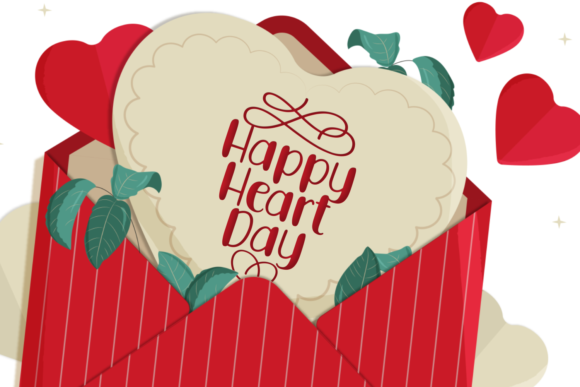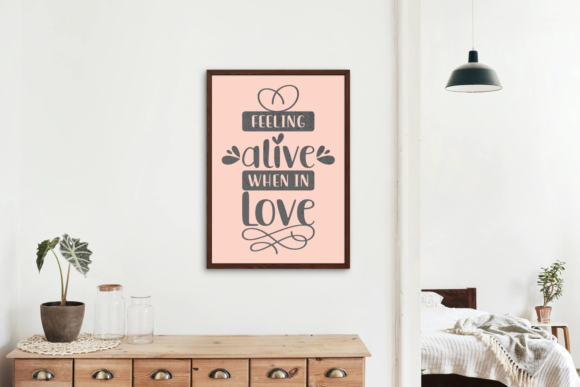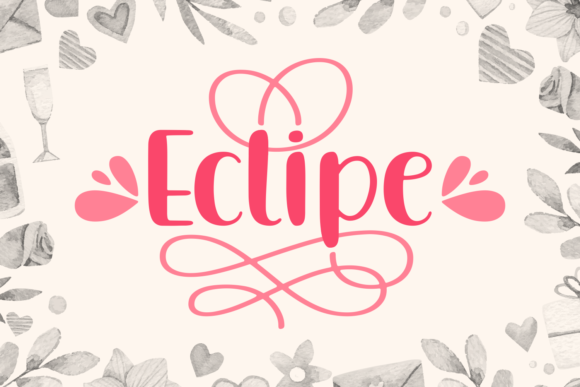
Eclipse Font: Elevate Your Designs with a Whimsical Script Font
In the world of typography, fonts play a crucial role in conveying the tone and personality of a design. Whether you’re a graphic designer, a crafty DIY enthusiast, or a digital artist, finding the right font can make all the difference in creating visually stunning and effective designs. If you’re on the hunt for a font that exudes a sense of whimsy and relaxation, look no further than the Eclipse Font.
What is Eclipse Font?
Eclipse is a charming script font that boasts a relaxed theme, making it perfect for a wide range of design applications. Its lovely style is sure to capture the attention of your audience and add a touch of personality to your creations. With its unique and elegant feel, Eclipse Font has the potential to become an incredibly valuable asset in your font library.
Key Features of Eclipse Font
- Whimsical Script Style: Eclipse Font features a beautiful, flowing script style that’s perfect for creating eye-catching headlines, titles, and quotes.
- Relaxed Theme: The font’s relaxed theme makes it ideal for designs that require a friendly, approachable feel, such as branding, packaging, and advertising.
- Versatility: Eclipse Font is incredibly versatile and can be used for a wide range of design applications, from digital projects to print materials.
- Elegant and Sophisticated: Despite its whimsical nature, Eclipse Font still manages to convey a sense of elegance and sophistication, making it perfect for high-end designs.
Why Choose Eclipse Font?
So, why should you choose Eclipse Font for your next design project? Here are just a few compelling reasons:
- Unique and Eye-Catching: Eclipse Font is sure to grab attention and set your designs apart from the crowd.
- Easy to Read: Despite its decorative nature, Eclipse Font is still highly legible, making it perfect for use in body text and captions.
- Customizable: Eclipse Font comes with a range of customization options, allowing you to tailor it to your specific design needs.
- Time-Saving: With Eclipse Font, you can create stunning designs in a fraction of the time it would take with other fonts.
Design Applications for Eclipse Font
Eclipse Font is incredibly versatile and can be used for a wide range of design applications, including:
- Branding and Logo Design: Use Eclipse Font to create a unique and memorable brand identity.
- Digital Marketing Materials: Eclipse Font is perfect for use in social media graphics, email headers, and other digital marketing materials.
- Print Materials: Use Eclipse Font in brochures, flyers, posters, and other print materials to add a touch of personality.
- Crafting and DIY Projects: Eclipse Font is perfect for crafty DIY enthusiasts who want to add a personal touch to their projects.
In conclusion, Eclipse Font is a whimsical script font that’s sure to elevate your designs and add a touch of personality to your creations. With its relaxed theme, elegant style, and versatility, Eclipse Font is an incredibly valuable asset to any font library. Whether you’re a graphic designer, a crafty DIY enthusiast, or a digital artist, Eclipse Font is a must-have font that’s sure to inspire and delight.
Get Ready to Shine with Eclipse Font!